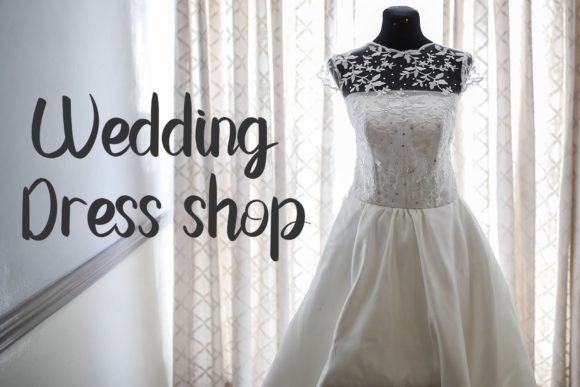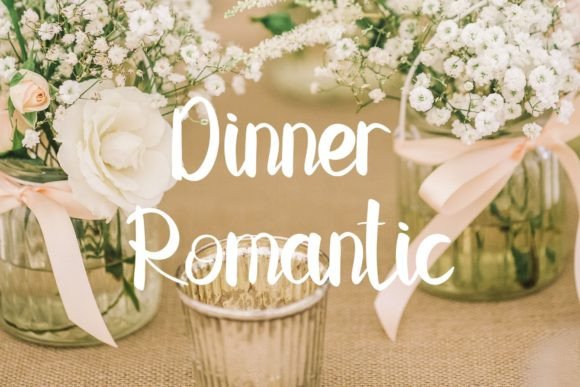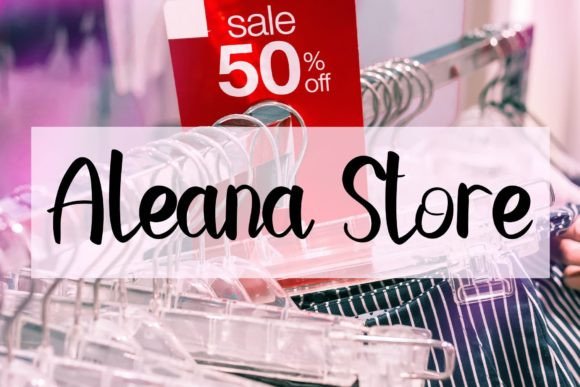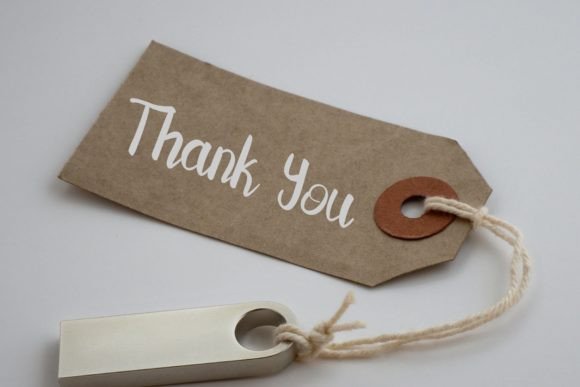
Angela Font
About Angela Font
“Angela” is a bold and beautiful handwritten font that combines a bold presence with an elegant touch, making it a perfect choice for a variety of projects. With its distinct and timeless style, Angela is crafted to make a lasting impression, adding a touch of sophistication to your favorite designs.
The boldness of Angela brings a strong and confident aesthetic to your text, making it stand out and command attention. The beautiful handwritten elements add an elegant touch, creating a harmonious blend of strength and grace in the font’s design.
Whether you’re working on branding, headlines, or any creative project, Angela is versatile enough to adapt to various design needs. Its distinct and timeless style ensures that it remains visually appealing across different contexts.
In summary, Angela is more than just a font; it’s a design tool that brings boldness and beauty together in a harmonious blend. Let Angela be the choice that adds a touch of elegance and sophistication to your favorite projects, creating designs that are both distinct and timeless.